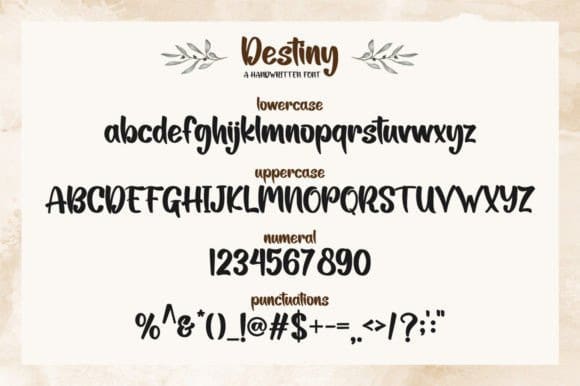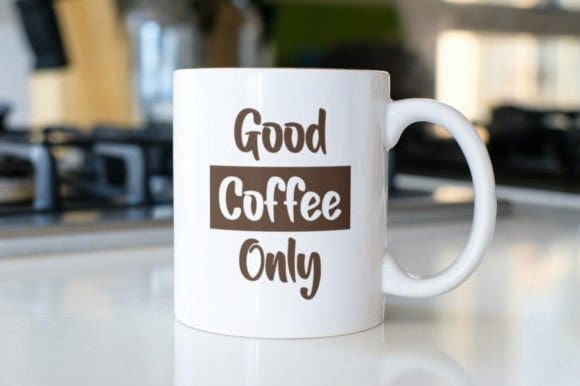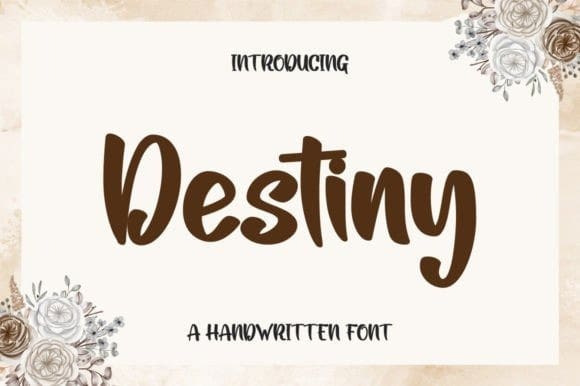
Destiny Script Font
Destiny Script Font is a fun and smart-looking handwritten font. It looks ravishing on invitations, thank you cards, quotes, greeting cards, logos, business cards and every other design which needs a customized touch.